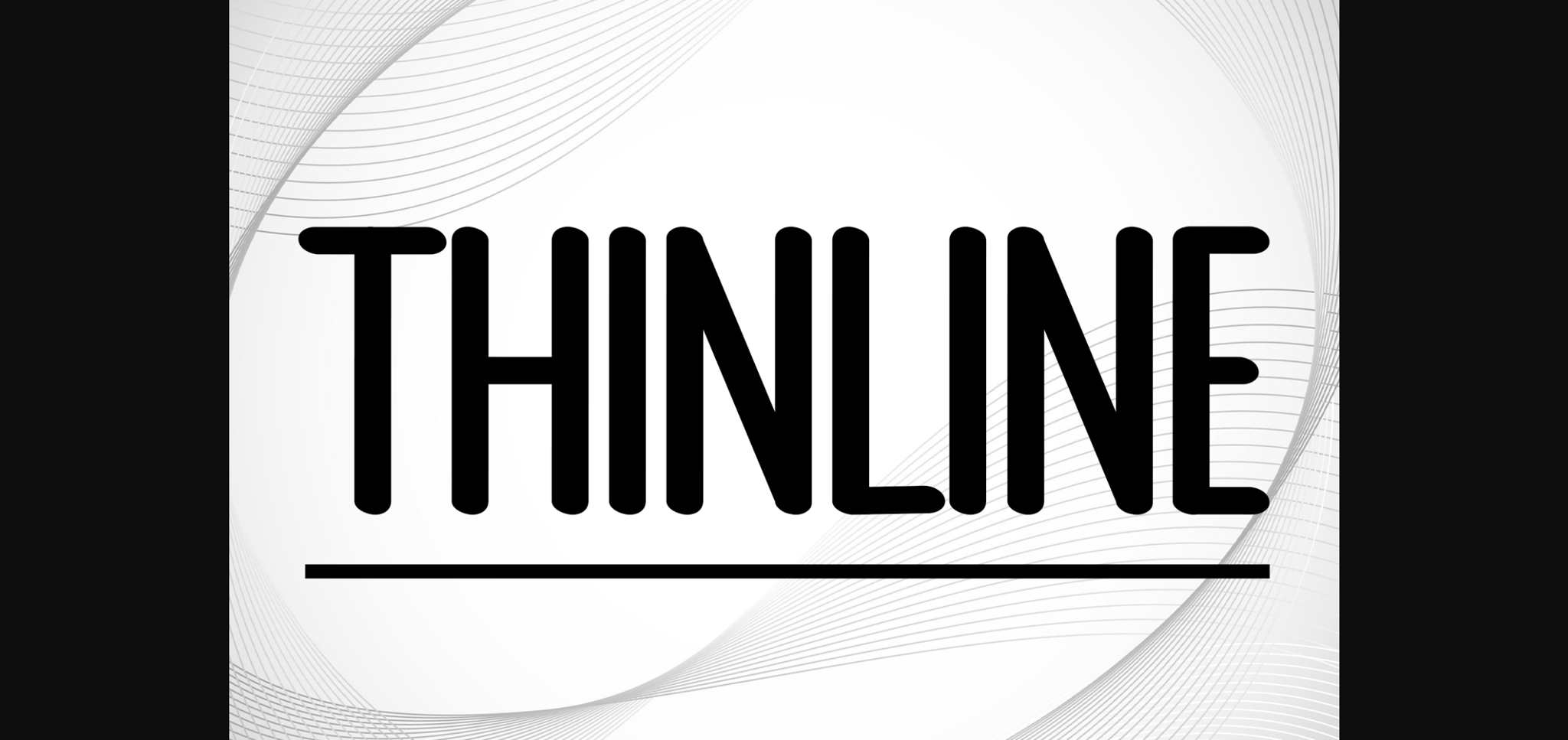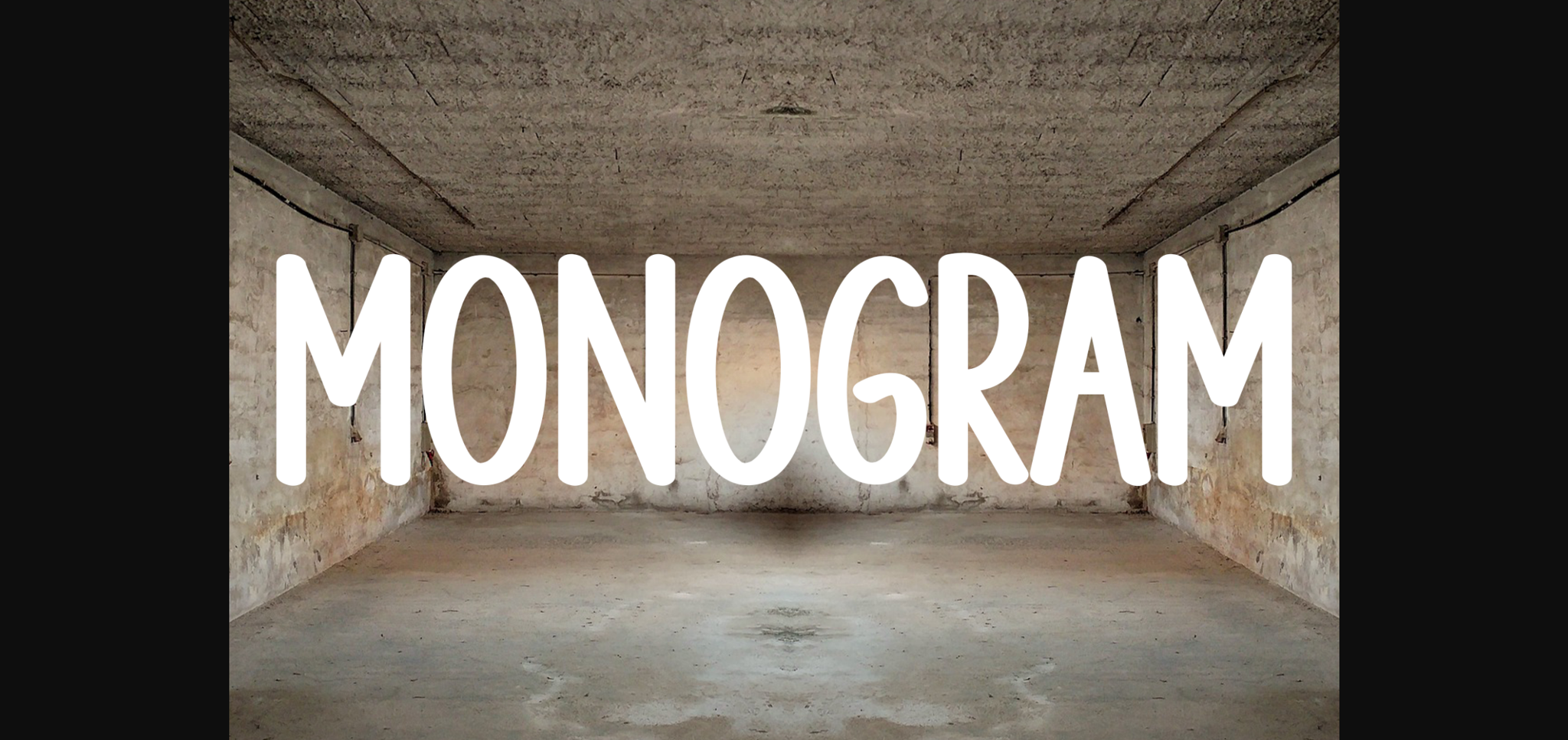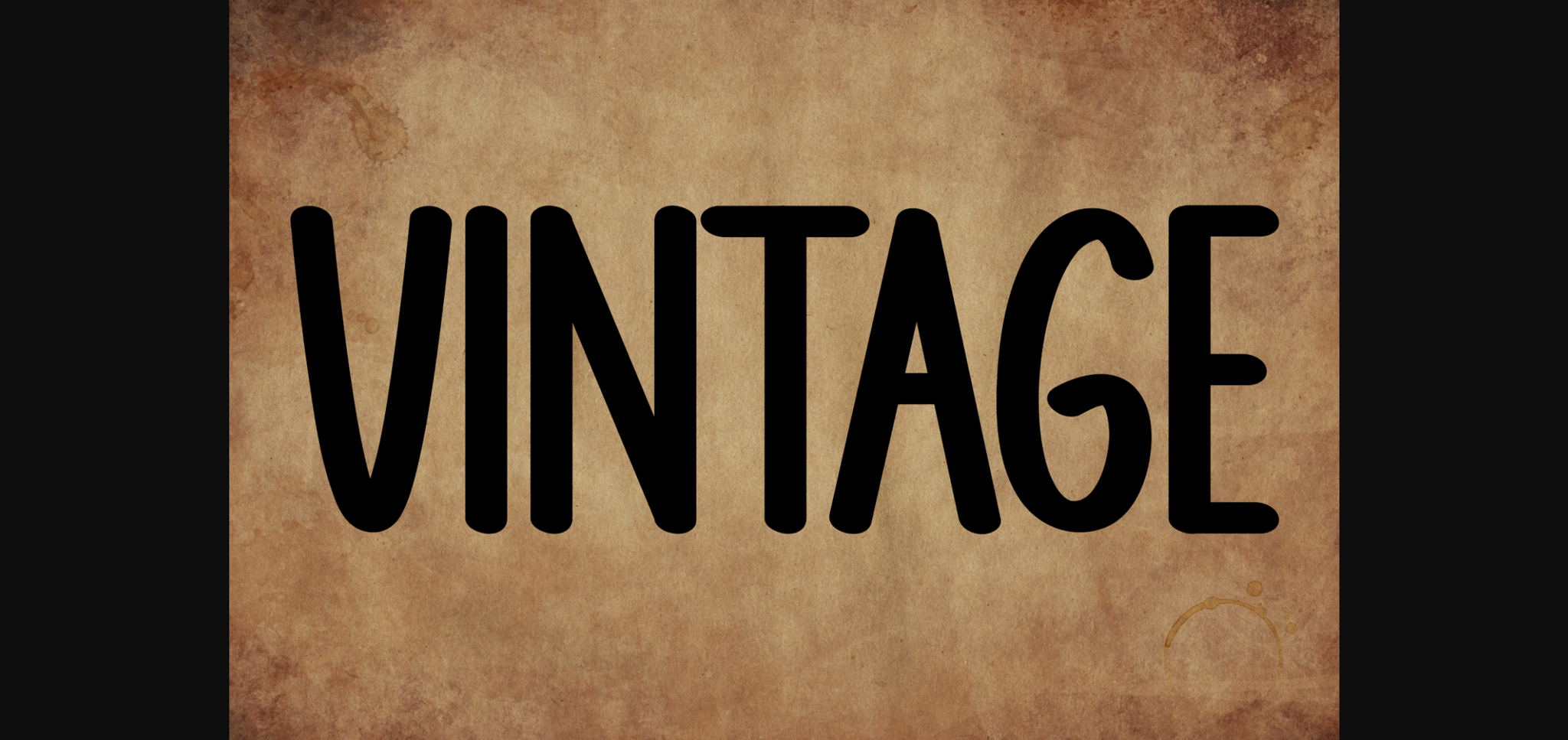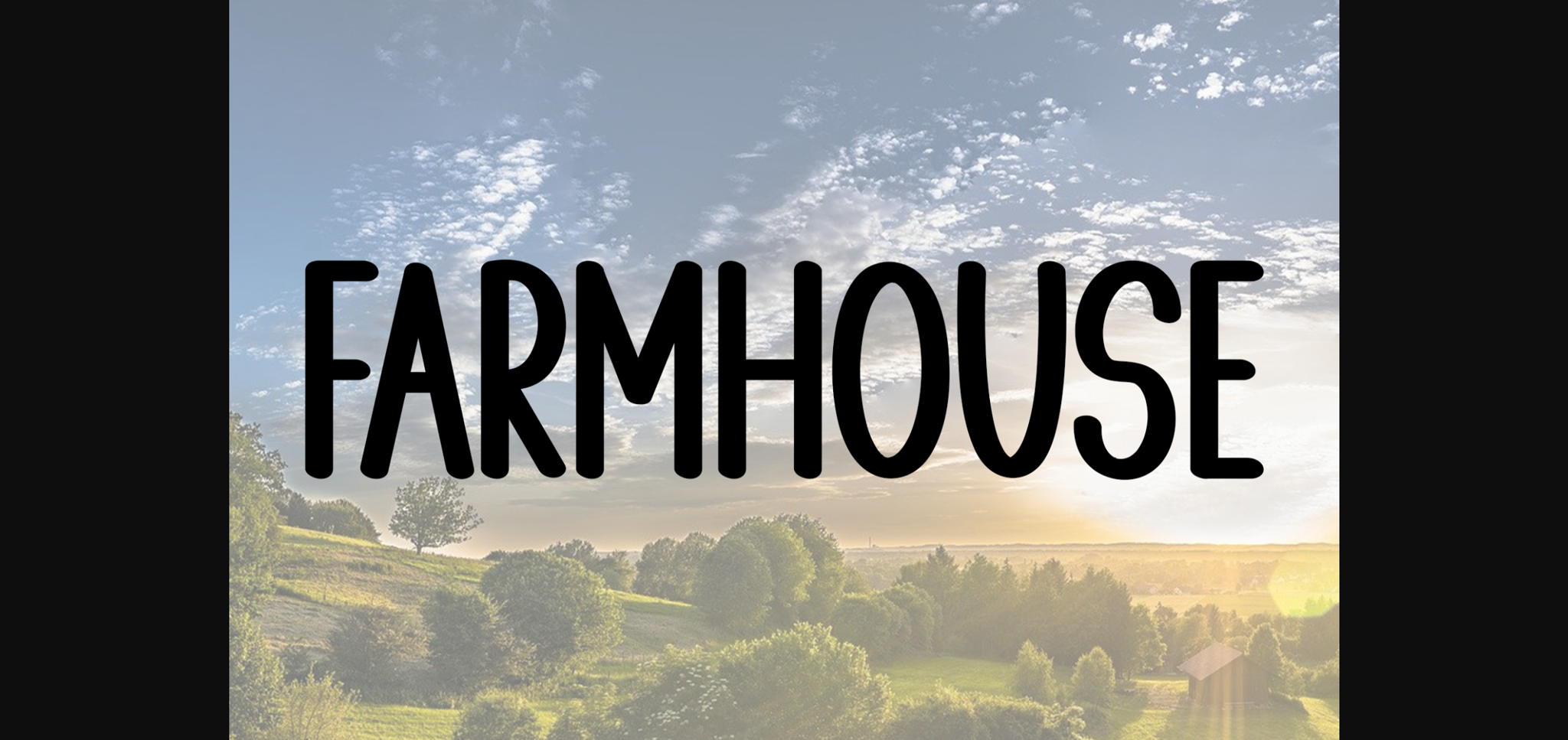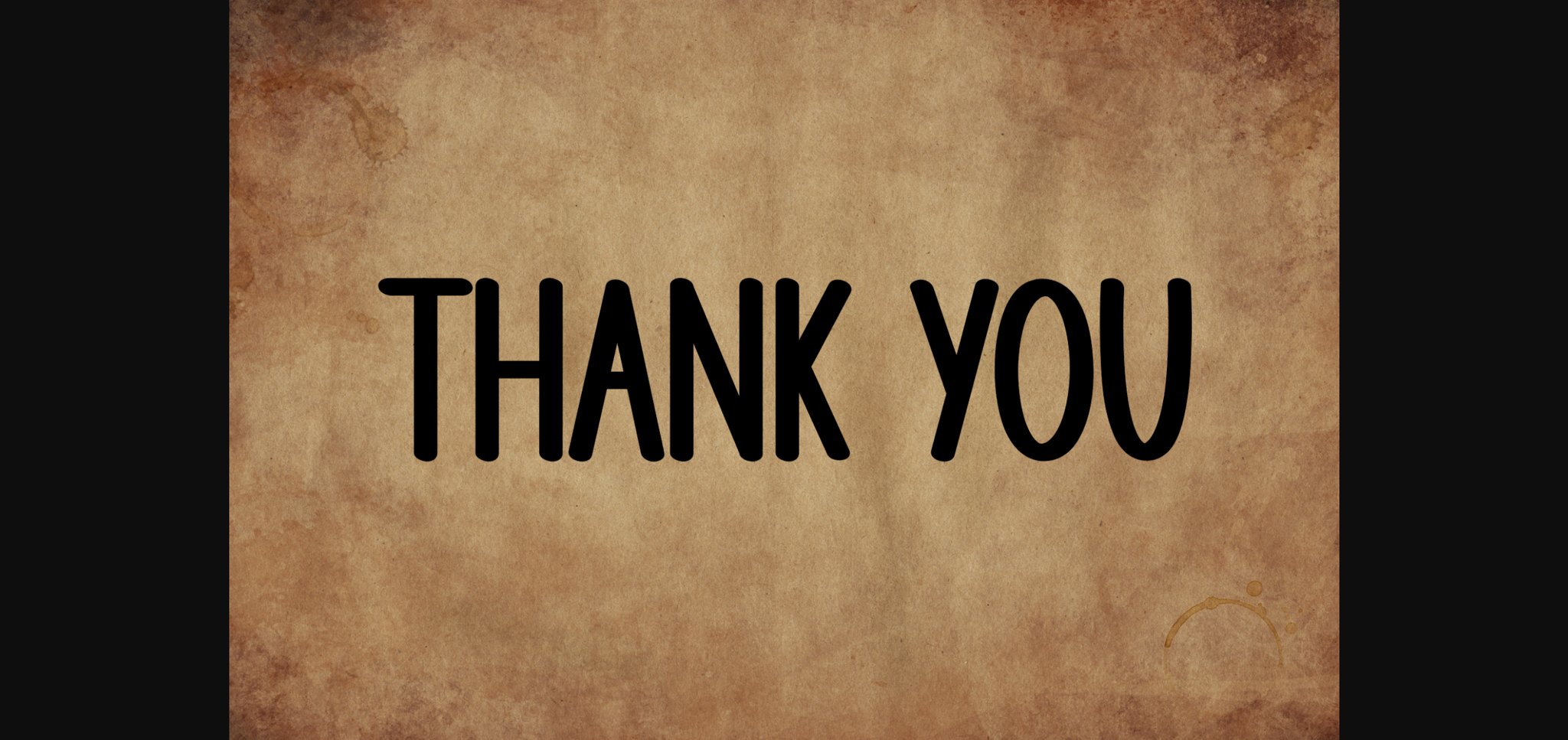
About Thinline Font
Thinline is a cool and modern Sans Serif font. Whether you’re using it for crafts, digital design, presentations, or making greeting cards, this font has the potential to become your favorite go-to font, no matter the occasion.